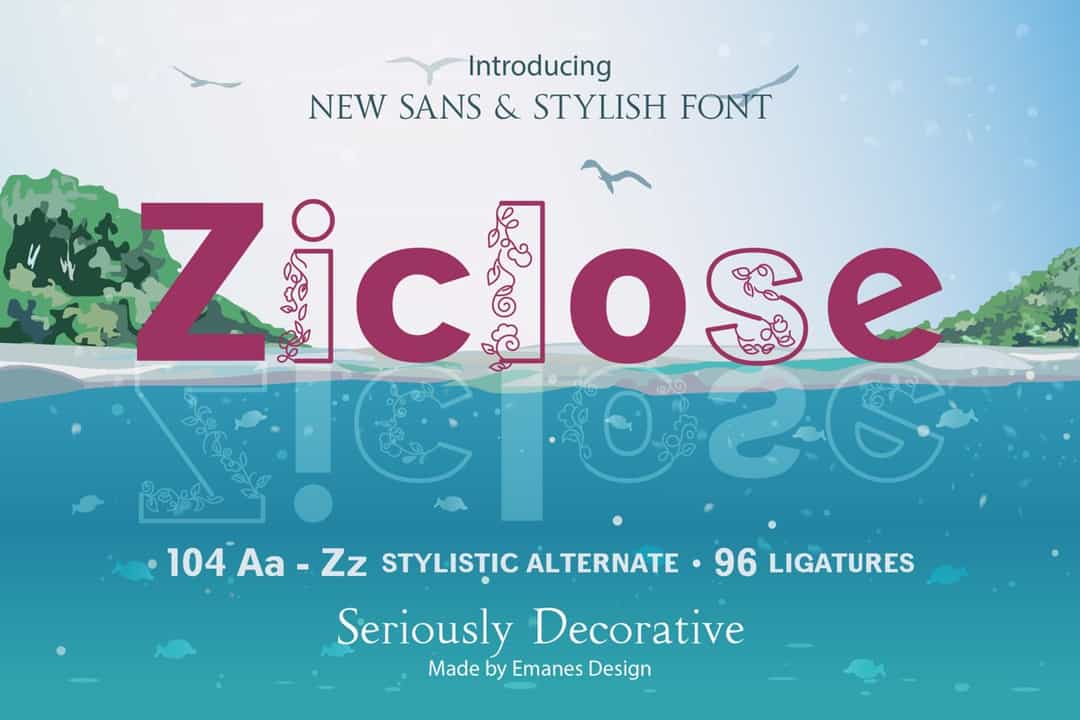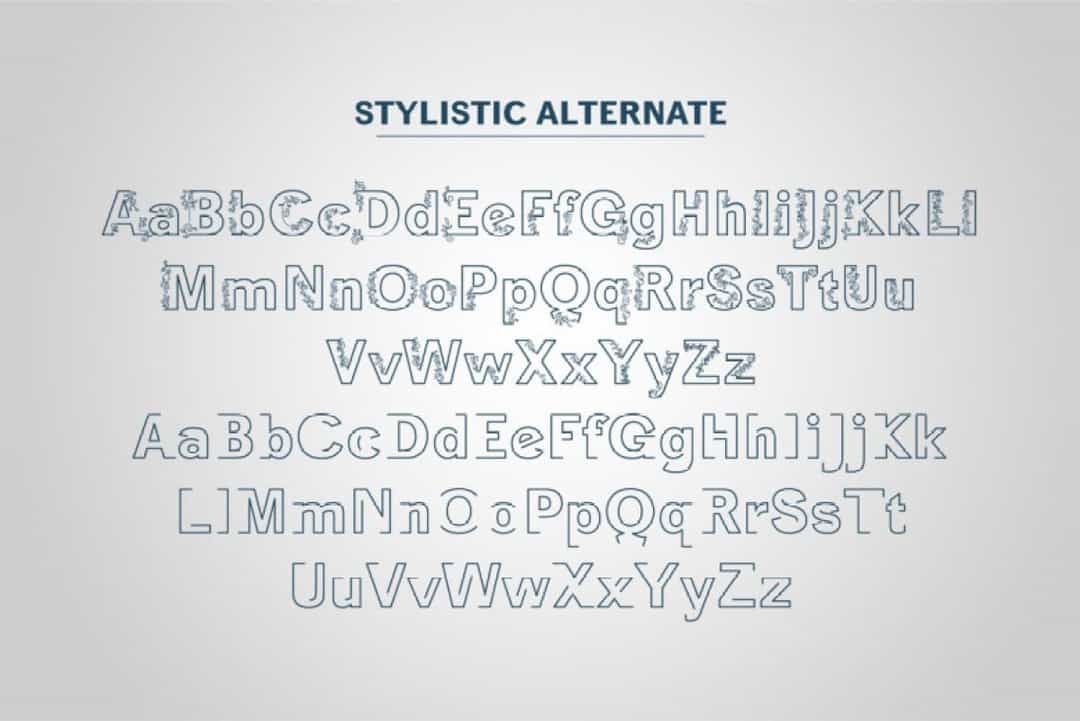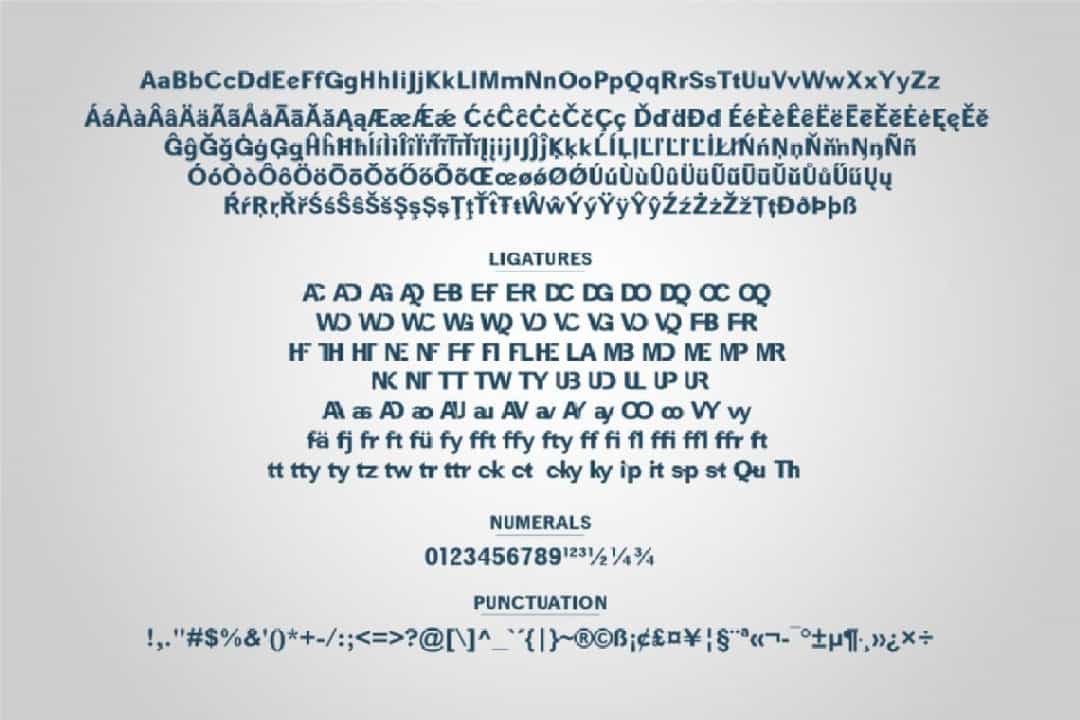
Ziclose Font can be described as a San serif floral and plant font with three styles available – Floral, Inline and Regular/Medium Inline Medium font contains lower case and upper case letters in addition to the punctuations and has multilingual support without the need for additional design software to access. Theses are perfect for monogramming and also as logos.